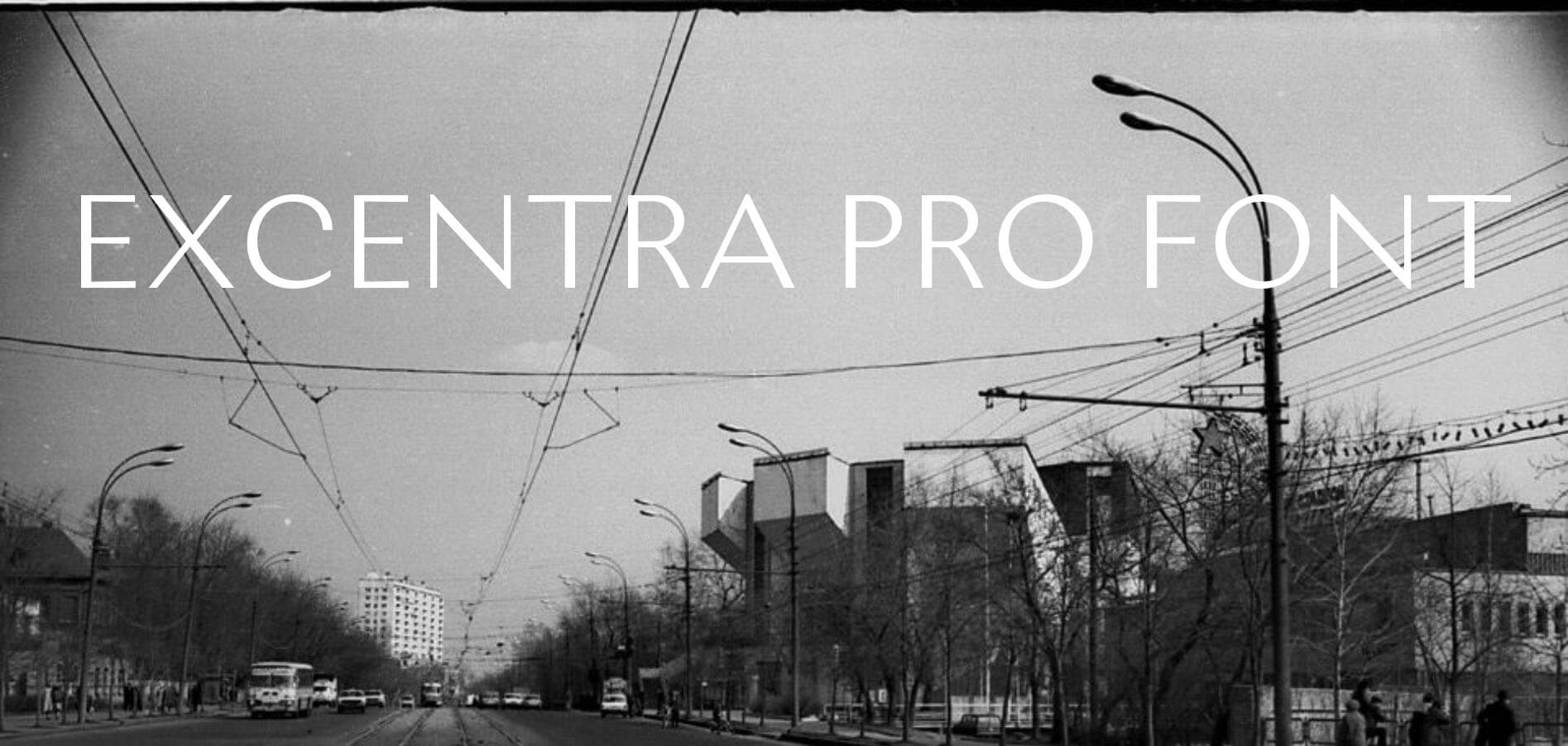
Blacksword is the clean font family that comprises 20 styles including regular, bold, italic, medium, etc. This high-quality sans-serif typeface was designed by Andriy Konstantynov. It was published through Mint-type Foundry.
This font is also useful for any text content and also suitable for any title and post content, which are providing the best look to its viewers. The most similar font to this font on the web is Cambria Font.
Excentra Pro Font